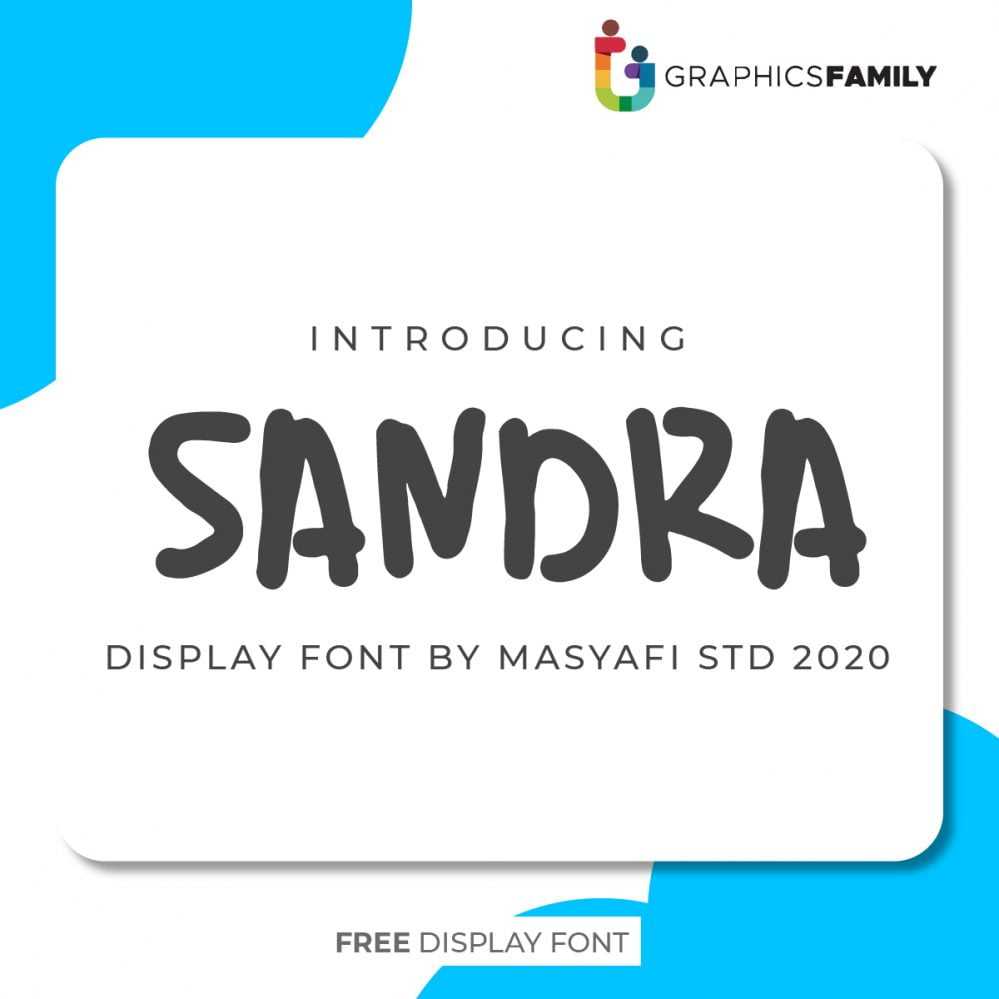
Sandra Font – Download Grátis
Sandra Font Sandra is a simple and neat display font. It embodies playfulness and authenticity and is the perfect choice for any children activity or school project.